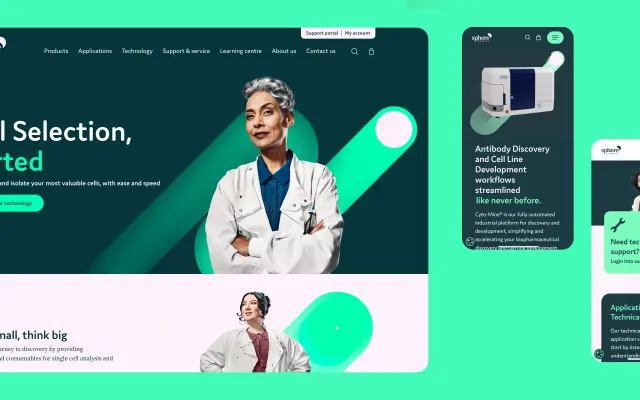
JAF Domus
Just Another Foundry · Tim Ahrens & Shoko Mugikura · 2016
A monolinear, rounded-terminal sans derived from JAF Domus Titling, recalibrated with more economical proportions for sustained text use.
Spun off from the display-oriented JAF Domus Titling, this text version by Tim Ahrens and Shoko Mugikura tightens the classical Roman proportions of the original while preserving its soft, generous character. Seven weights from Ultralight to Extrabold each carry matching italics, with the extreme ends of the range suited to headline work and the middle weights comfortable in longer reading settings. The rounded terminals give it a approachable warmth that works well in brand identity contexts, as demonstrated in its use for life sciences company Sphere Fluidics.
Monolinear construction with rounded terminals and classical Roman proportions adapted for text use, placing it firmly in the geometric sans tradition with humanist softening.